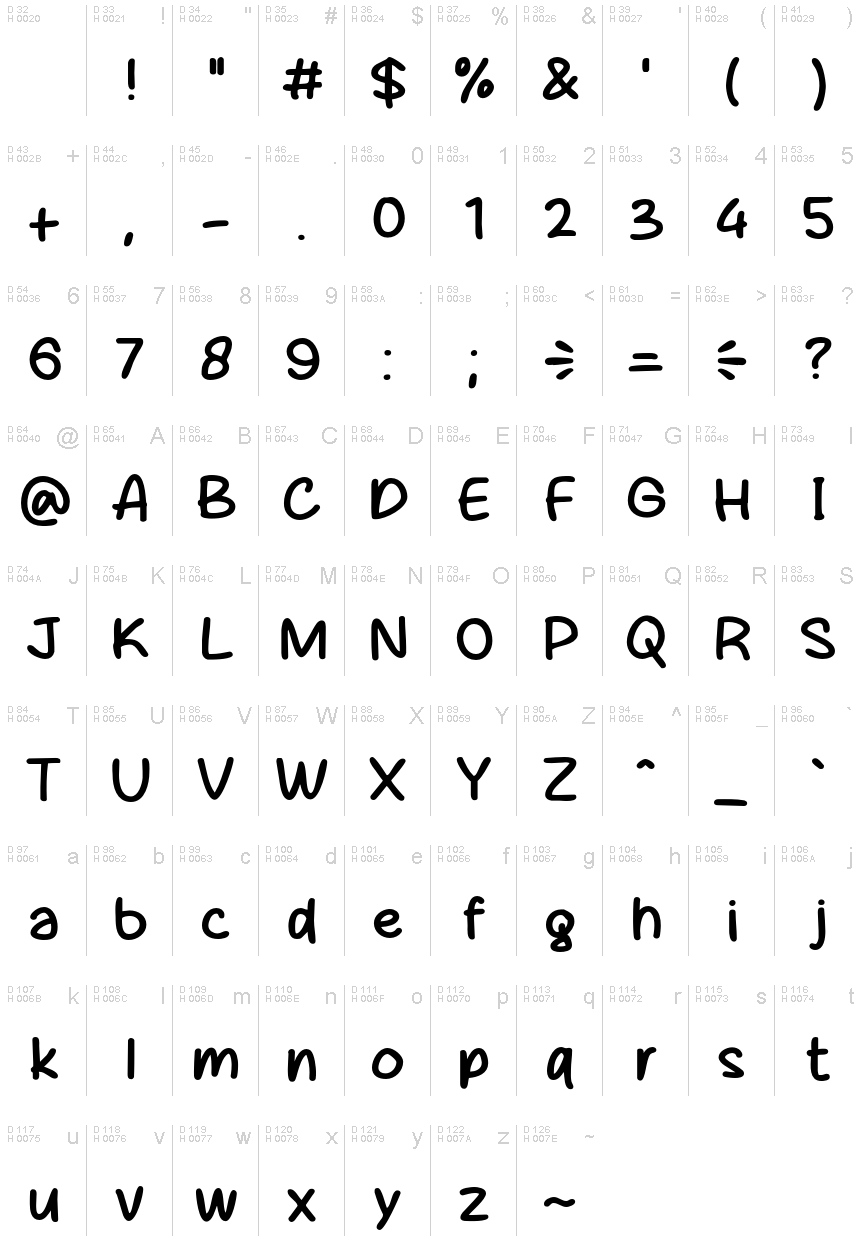
Cheese Ramen
Cheese Ramen font is a handwritten style inspired by the smoothness and warmth of melted cheese. Crafted by MJType, this font brings a touch of playful pizzazz to your designs. Cheese Ramen is full of charm and character, making it perfect for any project that needs a quirky twist.